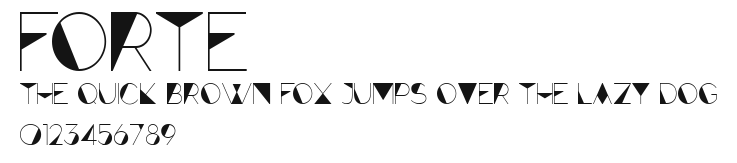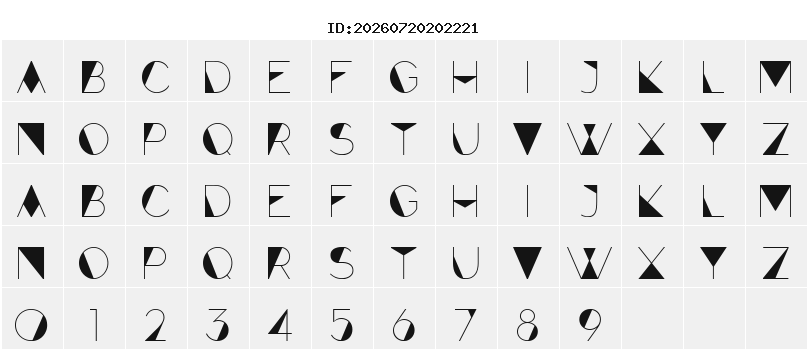
Forte Preview
• Font Name: Forte
• Font Style: Fill
• Font ID: 1.000;PYRS;Forte-Fill
• Full Font Name: Forte
• Version: Version 1.00 2013
• PostScript Name: Forte-Fill
• Character Count: 95
• Designer: Kritzmire, Paul
• Manufacturer: PYRS Fontlab Ltd. / Made with FontLab
• Description: Unknown Regular is a font by PYRS Fontlab Ltd. / Made with FontLab, designed by Kritzmire, Paul in 2013.
About Forte.ttf
Forte.ttf is a modern, elegant sans-serif font designed for ultimate readability and visual harmony. Perfect for branding, headlines, web design, and print materials.